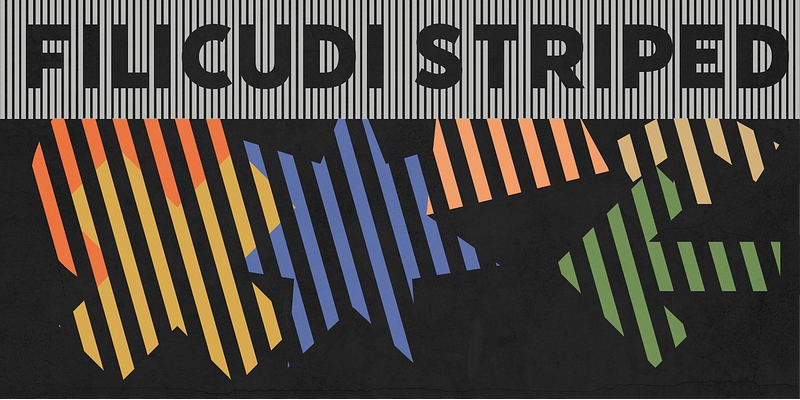
The Tipoteca Series is a family of three typefaces resurrected from the rich wood type collection of the popular letterpress museum and archive Tipoteca Italiana in Cornuda, Italy. This explosive series marks vol. II of Adobe’s Createfulness campaign, following the digital revival of 1920s graphic elements, symbols and pictograms from a handful of European metal type foundries, including Deberny & Peignot, Nebiolo and Trennert & Sohn.
In the spring of 2019, the design team of p98a.berlin rediscovered Tipoteca’s expressive wood type alphabets from various manufacturers, curated a small selection and made letterpress proofs from the original wooden letters for the purpose of restoring them digitally. Berlin-based type designer Ulrike Rausch carefully redrew the alphabets, expanded the character sets and added stylistic alternates as well as other OpenType features.
Filicudi is a two-layer display typeface with roots from Milan. While the weights Solid and Striped are each extraordinary solo artists, the latter marks the more exceptional character—yet they unfold a remarkable relationship as a duo. Filicudi Striped was originally conceived under the less spectacular name “no. 344”, mentioned as part of a larger multi-layered family in a 1930s type specimen catalogue of the Xilografia Milanese. It follows a style that was popular among type foundries in the 1930s all over Europe. Filicudi is ideal for use in large sizes, suited for announcements, advertising, and movie posters. Its remarkable feature is the ability to design banners, with several terminals such as arrows, wedges and semi-circles to chose from.